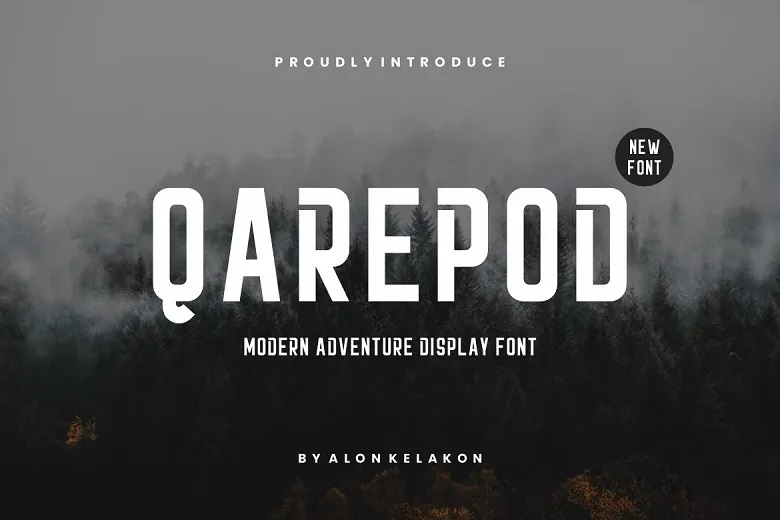
Qarepod Font
Qarepod is a modern and new adventure display fonts. You can use it in your designs such as labeling, movie scene, poster, title for a movie, concerts, album covers, logos and many others.
Qarepod Display Font